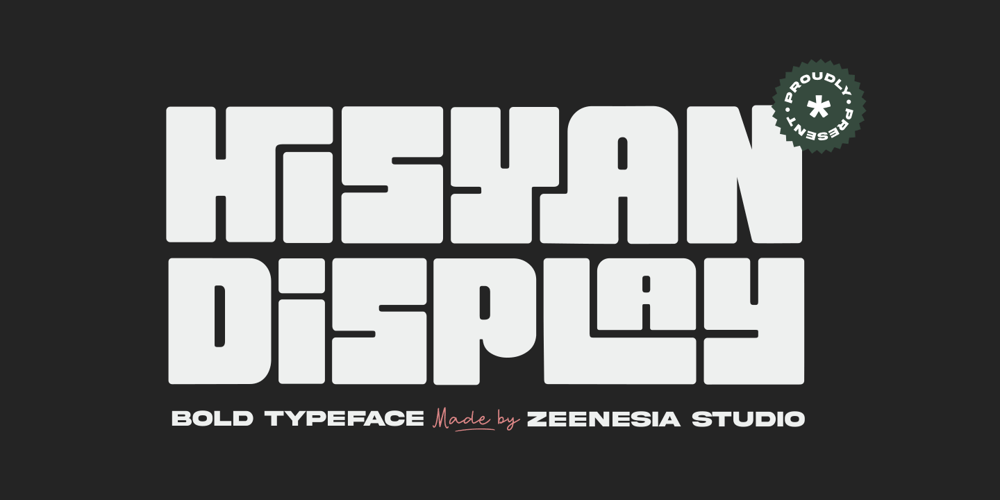
Hisyan Font Family was designed by Doni Purwoko and published by Zeenesia Studio. Hisyan contains 1 styles and family package options. INTRODUCING HISYAM.Hisyam is a Bold style sans serif font with strong character and soft features. modern and classic sans serif font with a clear and bold look. It’s a very versatile font that works great in large. Hisyam was built with open Type features, many stylistic alternate and Ligature makes your project will be awesome